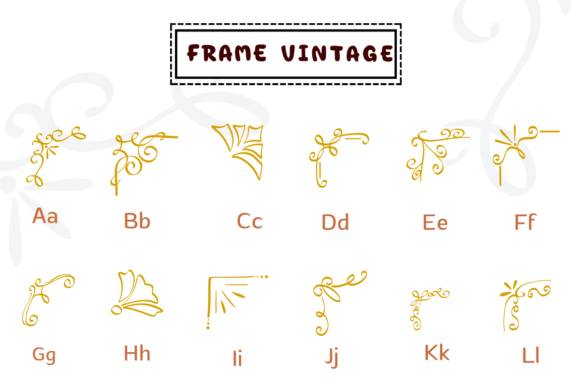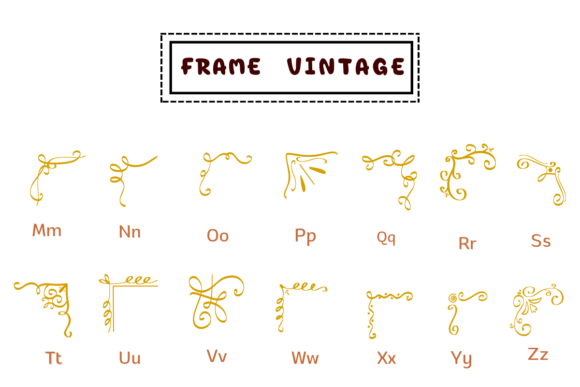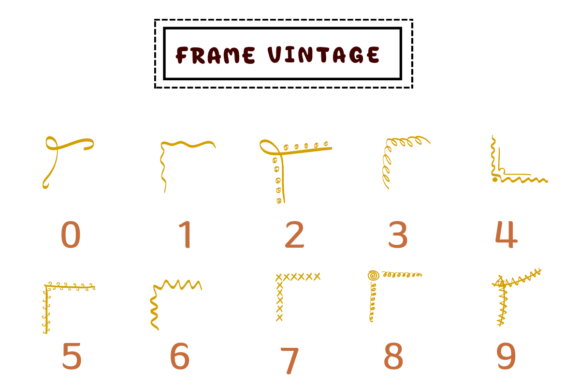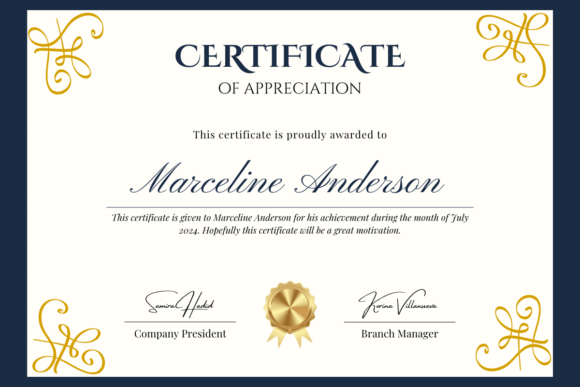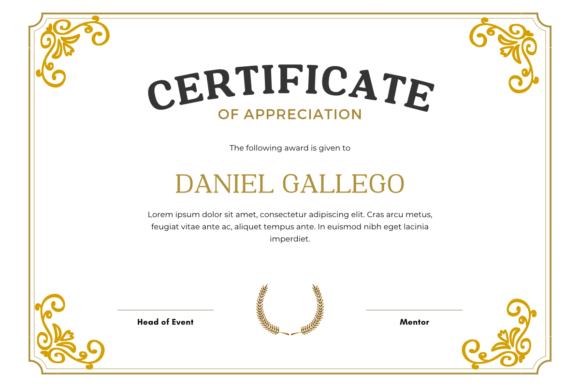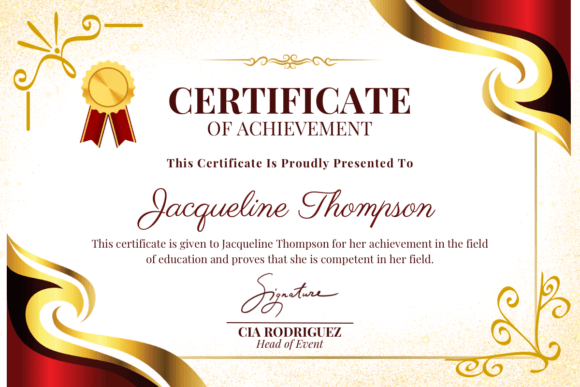
Introducing Frame Vintage Font: Elevate Your Designs with Timeless Charm
Are you a designer or crafter looking to add a touch of nostalgia to your projects? Look no further than Frame Vintage Font, a delightful dingbat font that embodies the essence of classic design. This charming font features an array of decorative icons, including borders, frames, and flourishes, perfect for infusing your work with a retro vibe.
The Charm of Frame Vintage Font
Frame Vintage Font is a meticulously crafted dingbat font that boasts an impressive collection of vintage-inspired designs. The font’s eclectic mix of decorative elements, including ornate borders, elegant frames, and intricate flourishes, will transport your designs back in time to an era of classic sophistication. Whether you’re working on a branding project, crafting a unique invitation, or creating a stunning visual display, Frame Vintage Font is the perfect choice for adding a dash of timeless charm.
Key Features of Frame Vintage Font
- Decorative Icons: Frame Vintage Font features an extensive range of decorative icons, including borders, frames, and flourishes, to help you add a touch of vintage flair to your designs.
- Retro Aesthetic: The font’s classic designs evoke a sense of nostalgia, making it perfect for projects that require a retro or vintage look.
- Dingbat Font: As a dingbat font, Frame Vintage Font allows you to easily access and use the decorative icons in your designs, making it simple to add a touch of elegance and sophistication.
- Scalable: The font is highly scalable, ensuring that your designs look great in any size or format.
Frame Vintage Font is an ideal choice for designers and crafters looking to add a unique and creative touch to their projects. Whether you’re working on:
- Branding and Packaging: Use Frame Vintage Font to create eye-catching logos, labels, and packaging that stand out from the crowd.
- Invitations and Stationery: Add a touch of elegance and sophistication to your invitations, greeting cards, and stationery with the font’s beautiful designs.
- Visual Displays: Create stunning visual displays, such as posters, flyers, and brochures, that showcase your creativity and style.
- Crafting and Scrapbooking: Use Frame Vintage Font to add a personal touch to your scrapbooking and crafting projects, making them truly unique and special.
Tips for Using Frame Vintage Font
To get the most out of Frame Vintage Font, here are a few tips to keep in mind:
- Experiment with Different Sizes: Play around with different font sizes to achieve the perfect balance between elegance and whimsy.
- Mix and Match: Combine Frame Vintage Font with other fonts to create a unique and visually appealing design.
- Use as a Accent: Use the font as an accent to add a touch of vintage charm to your designs, rather than using it as the primary font.
Frame Vintage Font is a treasure trove of classic designs that will elevate your projects to new heights. With its extensive range of decorative icons, retro aesthetic, and scalability, this dingbat font is perfect for designers and crafters looking to add a touch of timeless charm to their work. So why wait? Download Frame Vintage Font today and get ready to create stunning designs that exude elegance and sophistication!